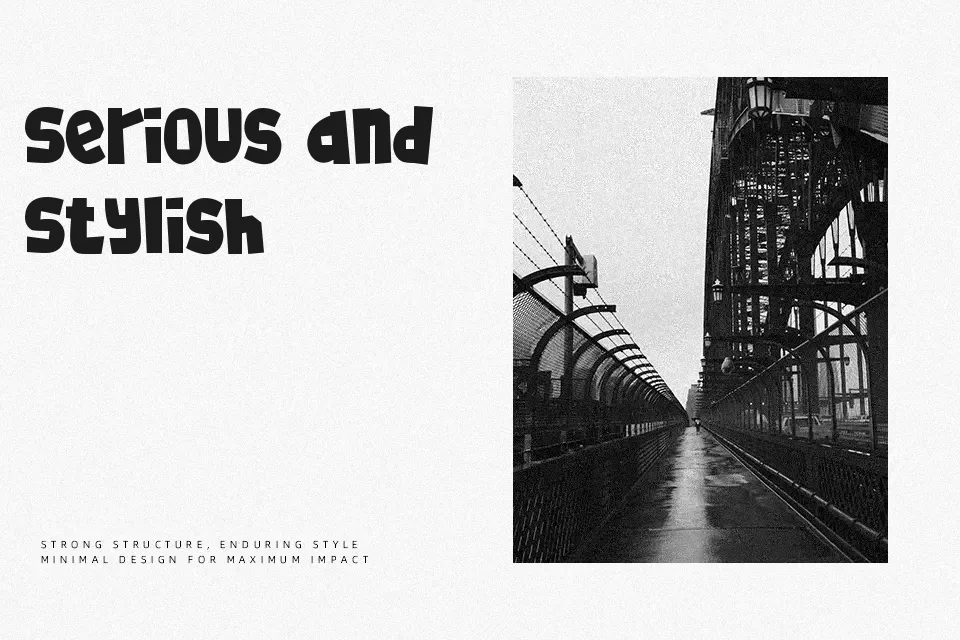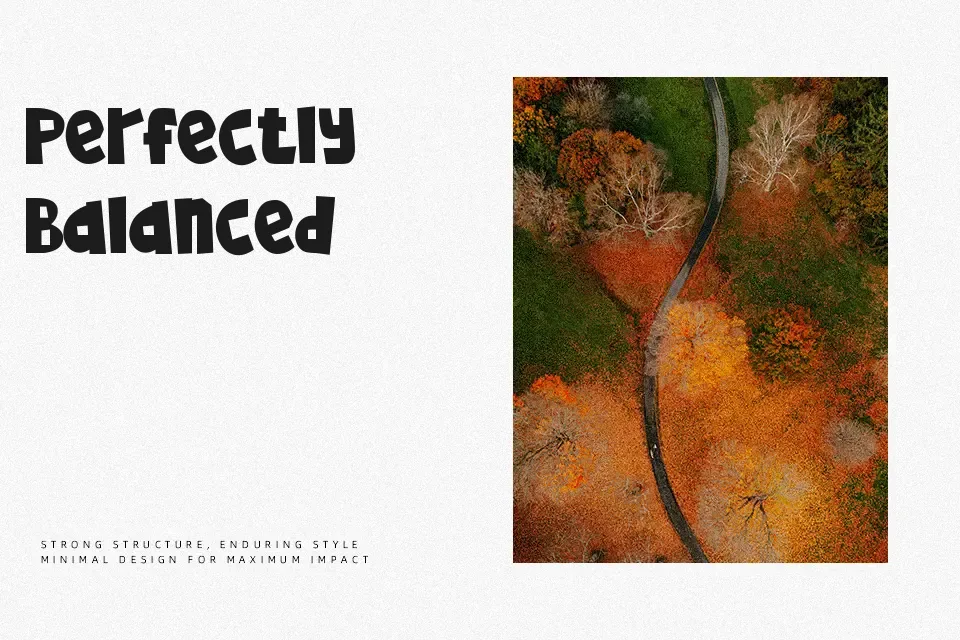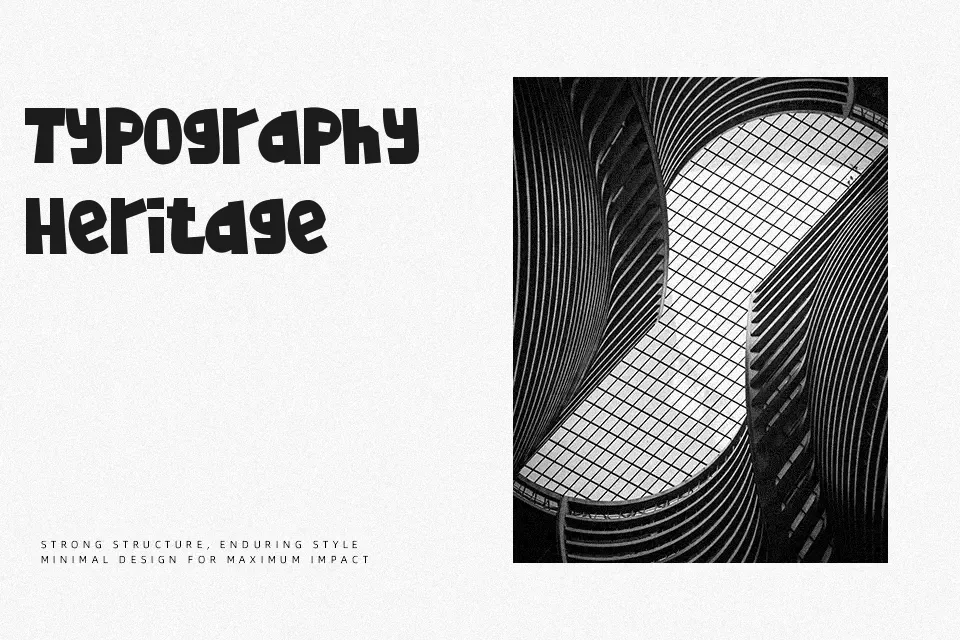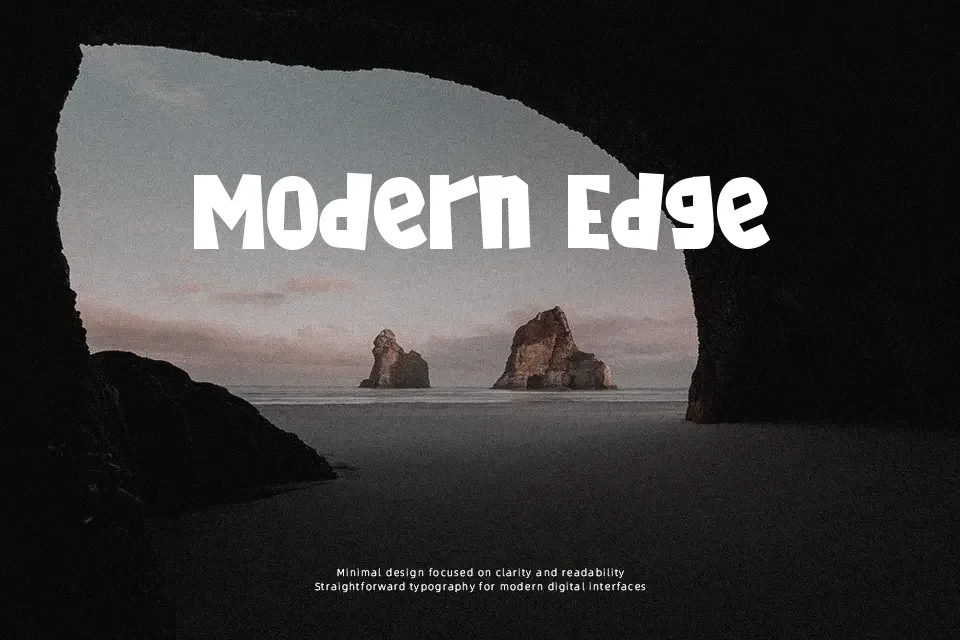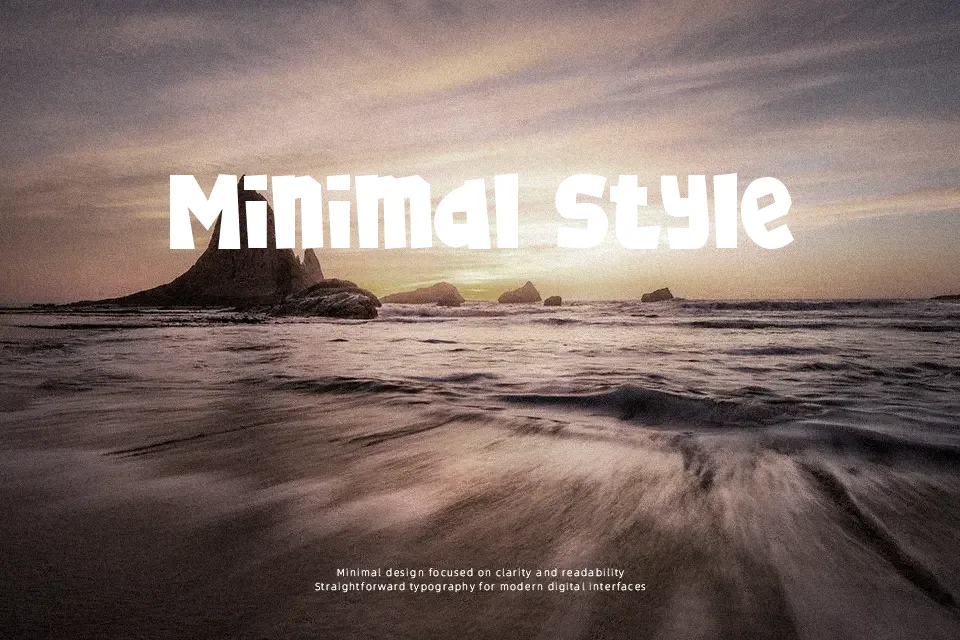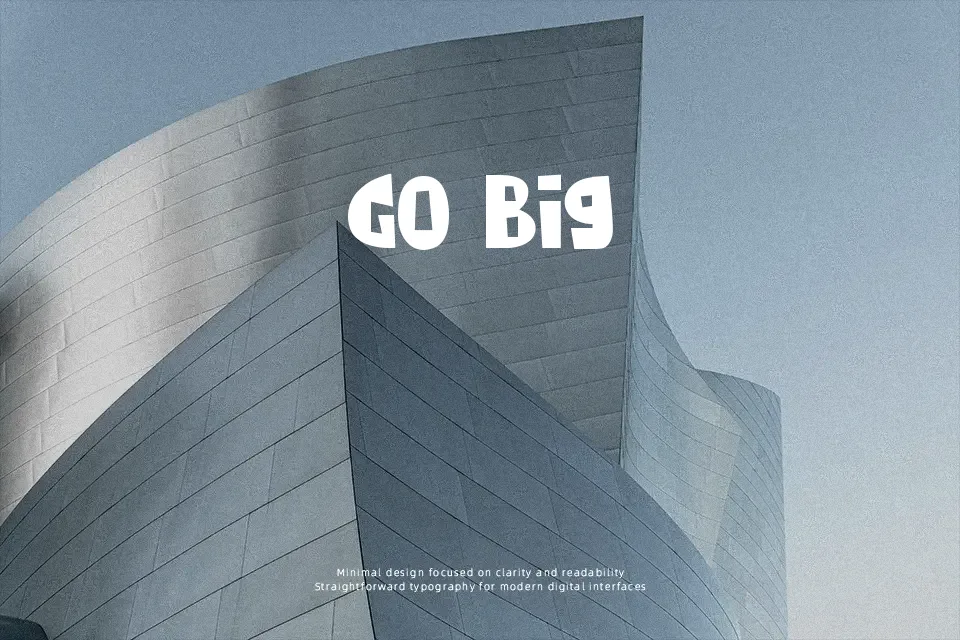
Tropicfun Font
Tropicfun Font presents a lively cutout structure defined by thick, irregular strokes and soft outer contours that evoke handcrafted paper art. Each character exhibits condensed horizontal proportions with minimal internal counters, keeping the visual mass concentrated and impactful. The spacing sits relatively close, creating cohesive word blocks in short display settings. While the letterforms remain easy to distinguish at prominent display sizes, the reduced negative space hampers continuous reading in extended body copy. A practical evaluation confirms that the typeface delivers strong visual distinction for playful headlines, merchandise graphics, and theme park signage, provided it is kept away from dense text blocks.
Best For: children’s book covers, toy packaging labels, animated series title cards
Not Ideal For: extended body paragraphs, corporate legal documents, mobile application menu text
Perfect for advertising, headline, and kids, with a bold and cartoon style.